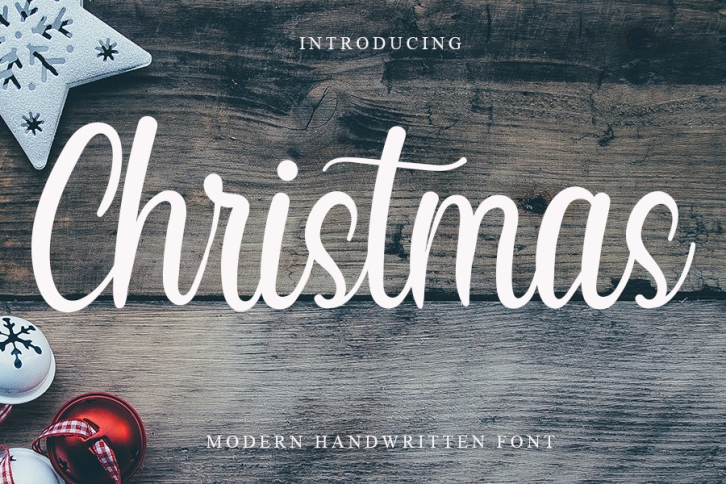
Christmas is a trendy and cursive handwritten font with a neat feel and an outstanding vibe. It will add a lovely touch to any design project that you wish to create!